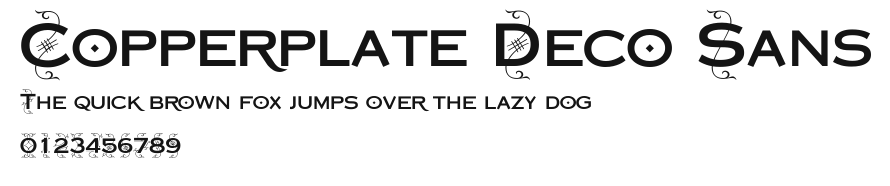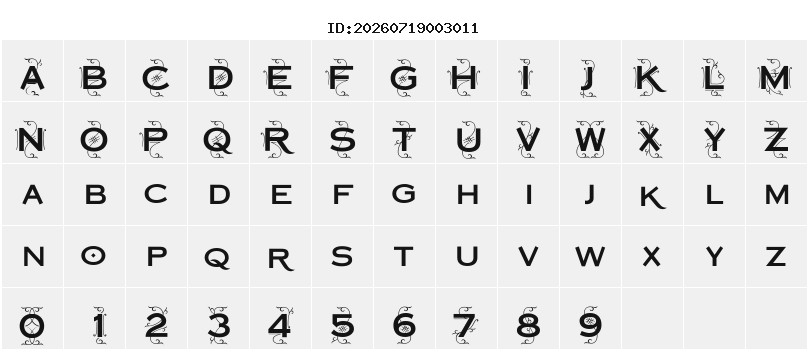
• Font Name: Copperplate Deco Sans
About Copperplate Deco Sans.ttf
Copperplate Deco Sans.ttf is a modern, elegant sans-serif font designed for ultimate readability and visual harmony. Perfect for branding, headlines, web design, and print materials.